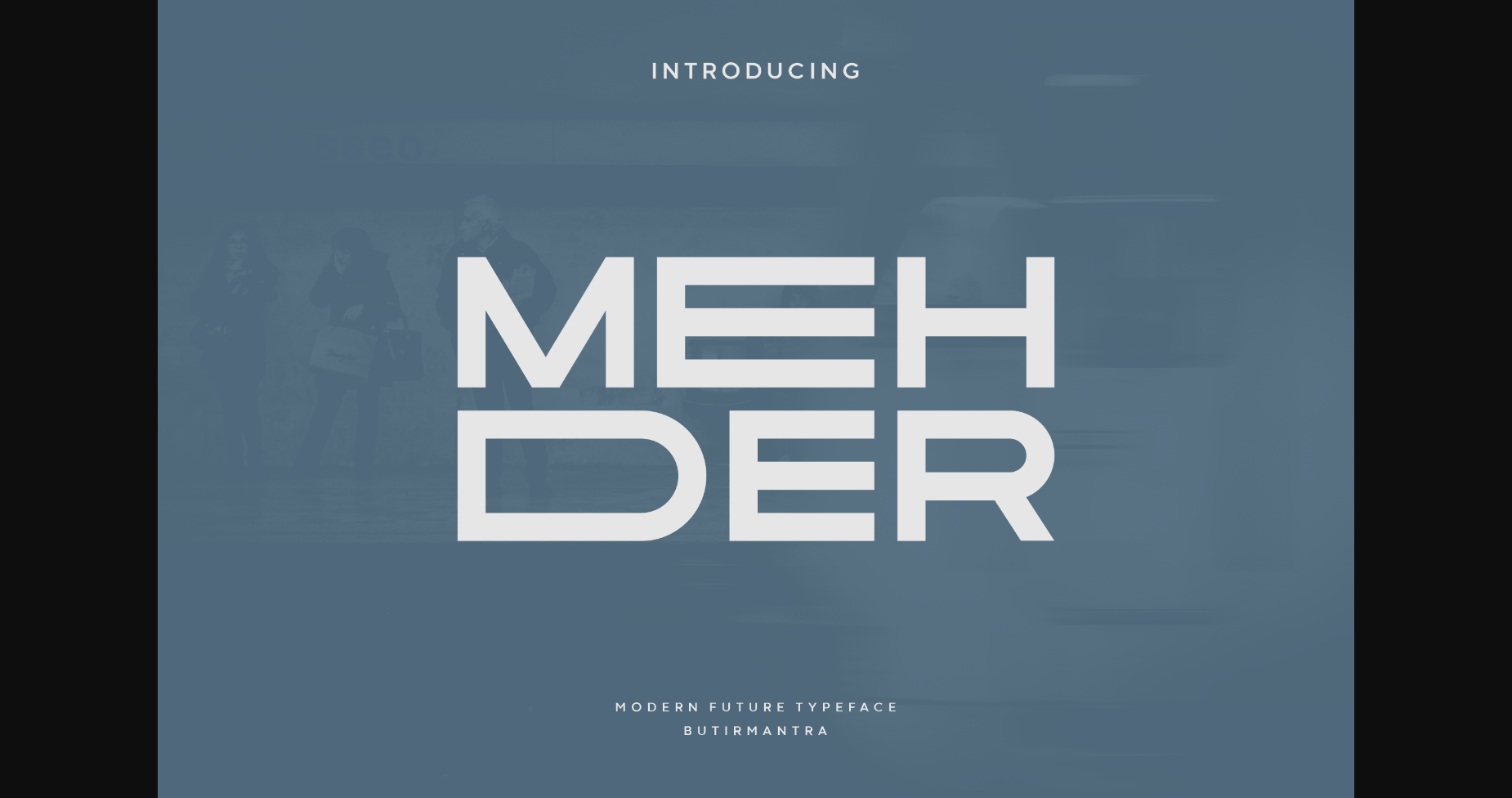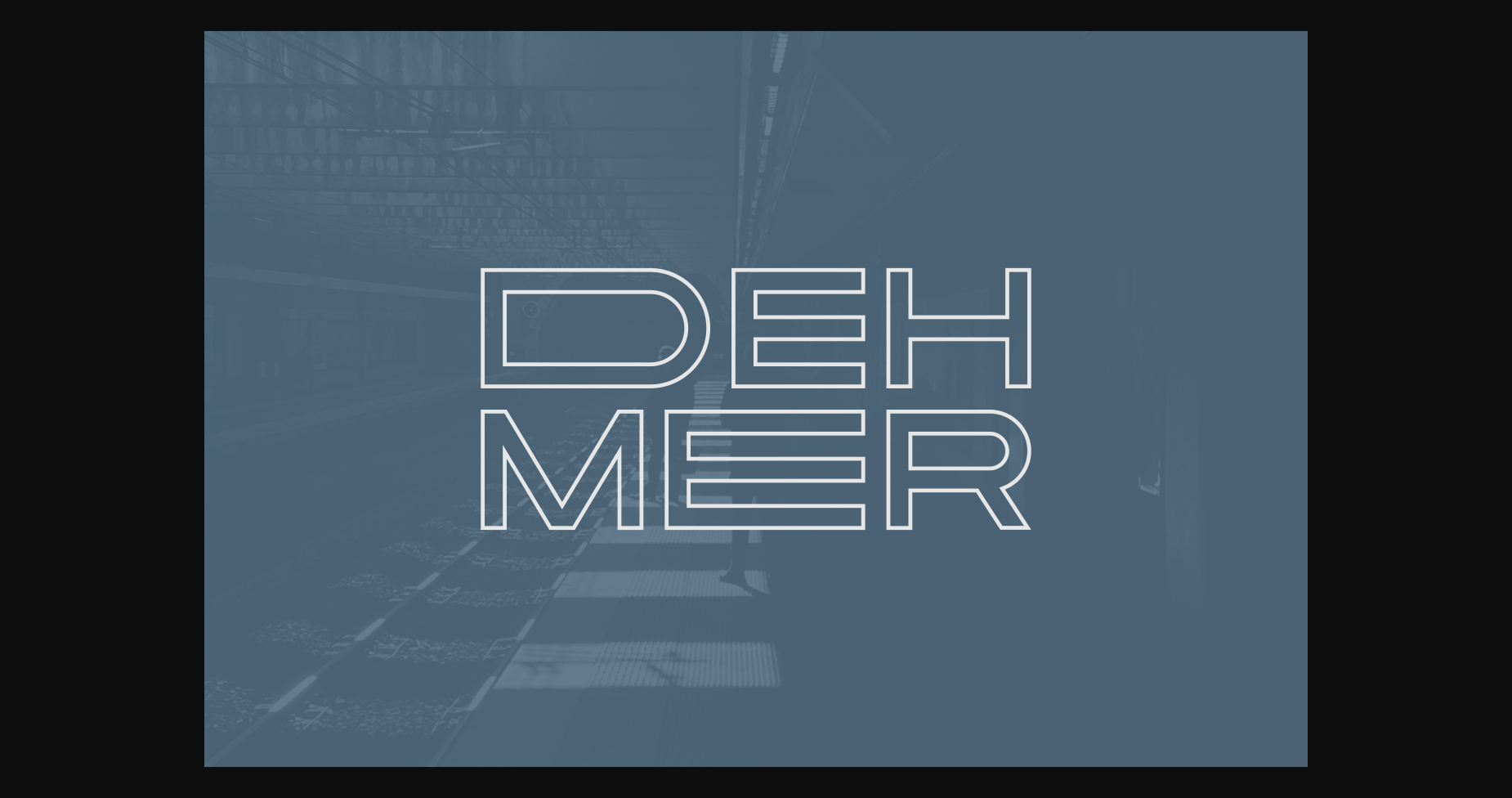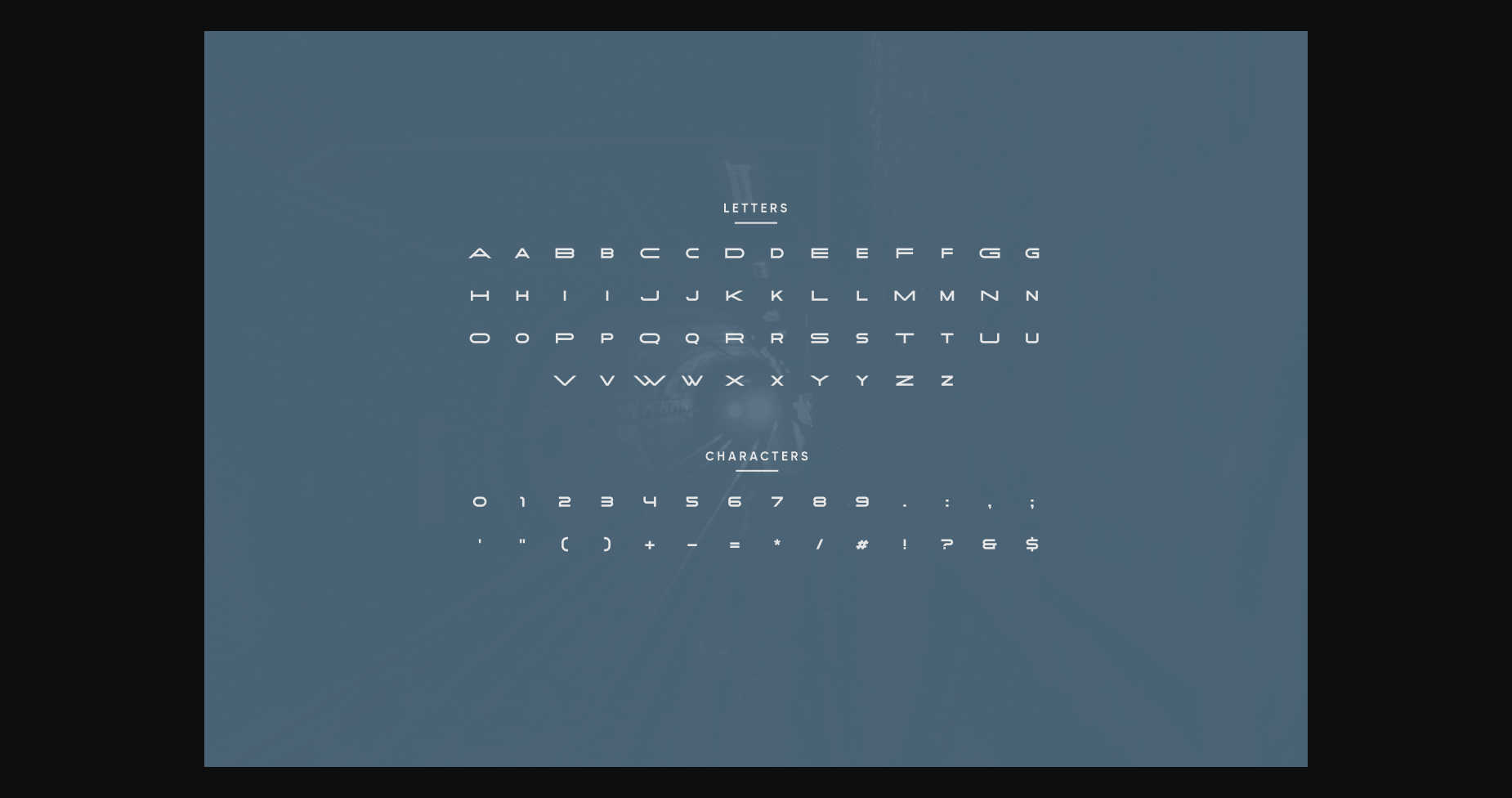
About Mehder Font
Mehder is display font with a unique style with a little improvisation in the uppercase mode, although this font is all uppercase but has a unique on outline font. This font is very suitable for anything related to the future, illustrations, posters, titles, logos, magazines, or various other designs, you will get a different experience and stand out in your designs.